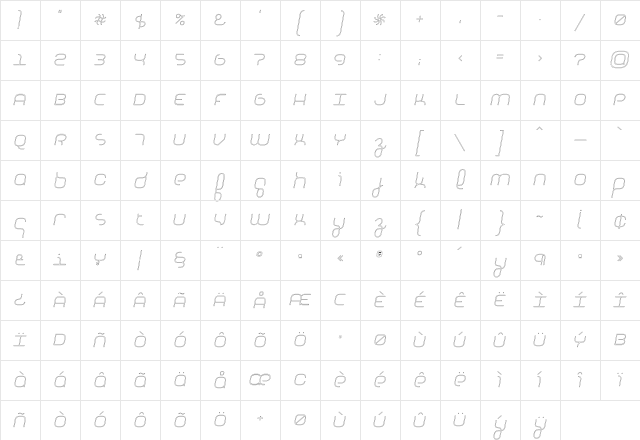
Basis ObliqueOutline
Style: ObliqueOutline
Design Context for Basis
Basis is built around its visual character rather than neutral utility - its distinctive forms are designed to make an impression at display sizes. The slanted form adds forward momentum and visual energy.
Font Pairing: Pair with a clean neutral sans-serif for body copy to let Basis's character lead without overwhelming the composition.
Pro Tip: Use Basis exclusively at display sizes - it was designed to be seen, not read at length. Let a neutral companion handle body copy.